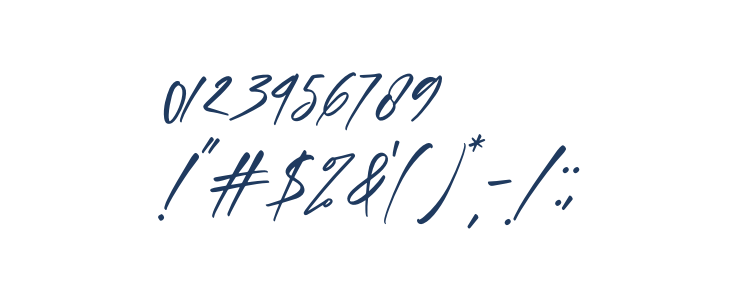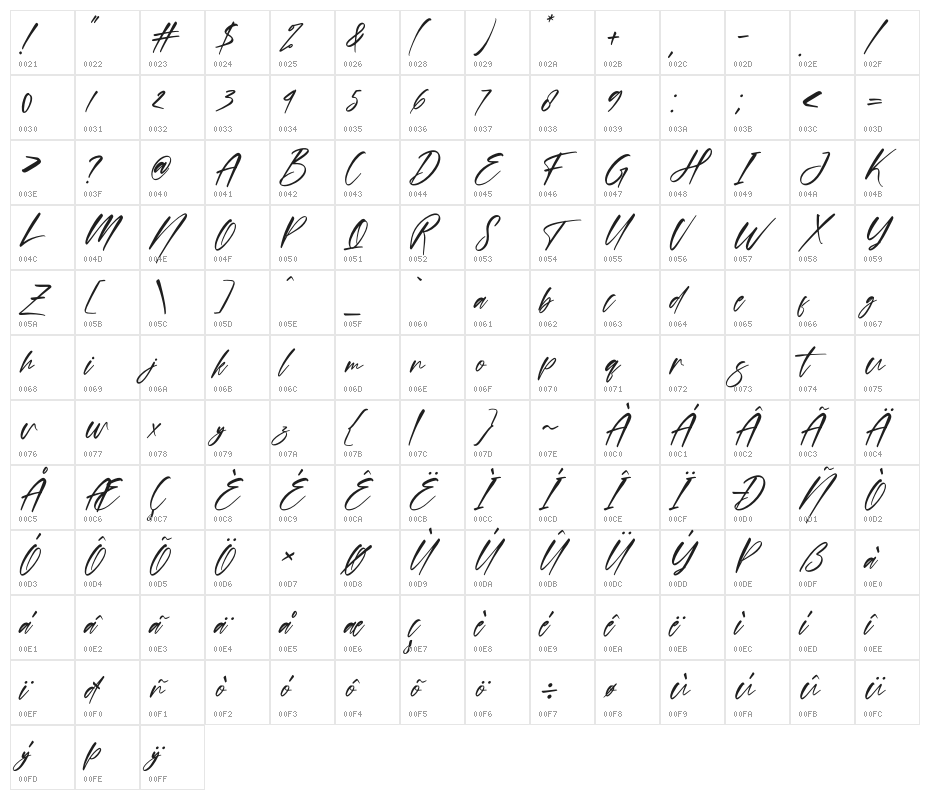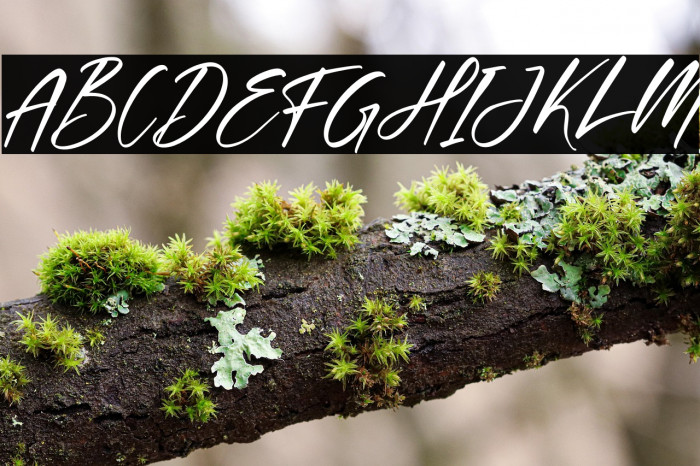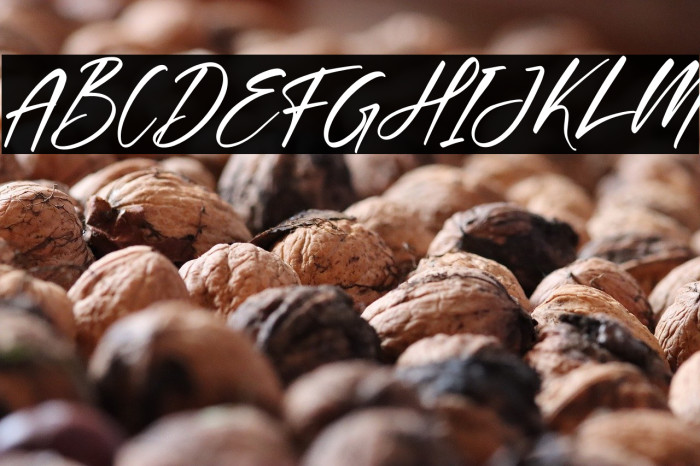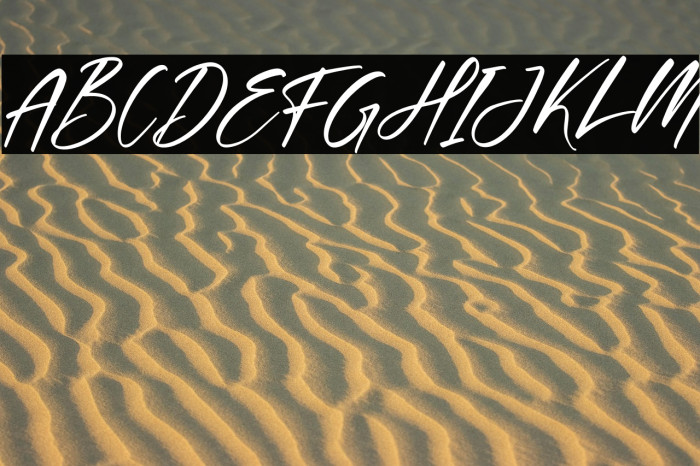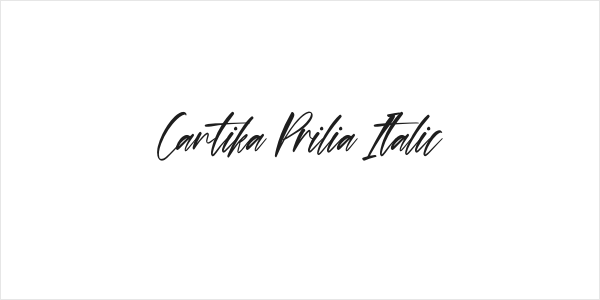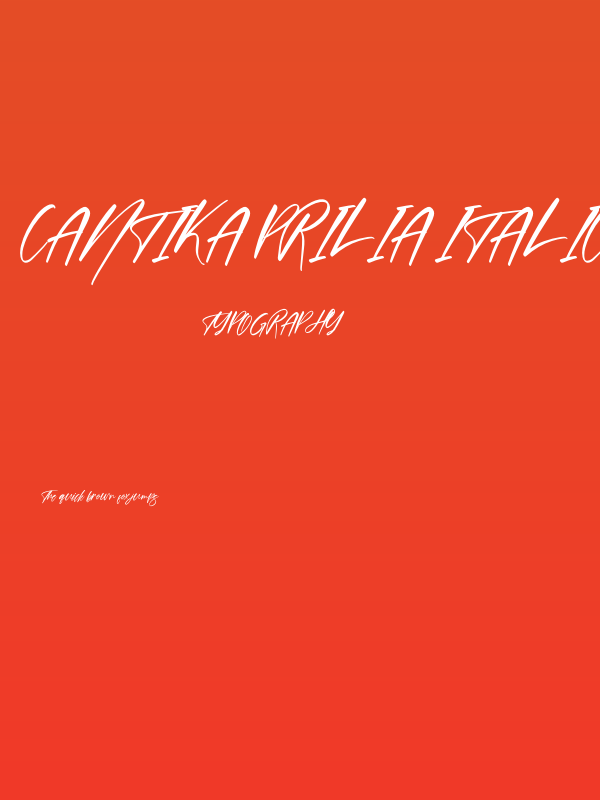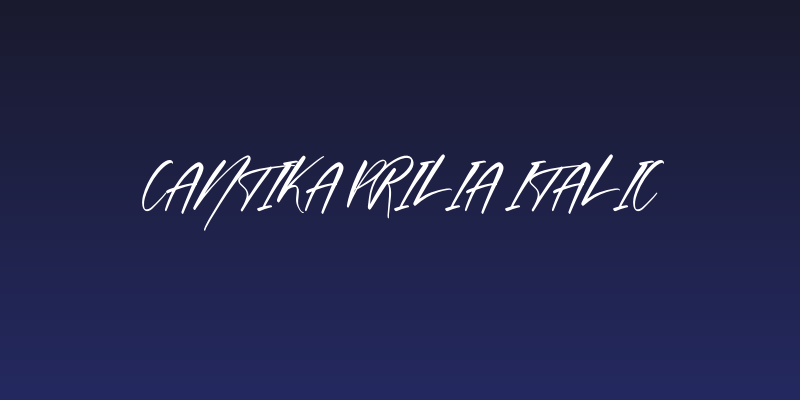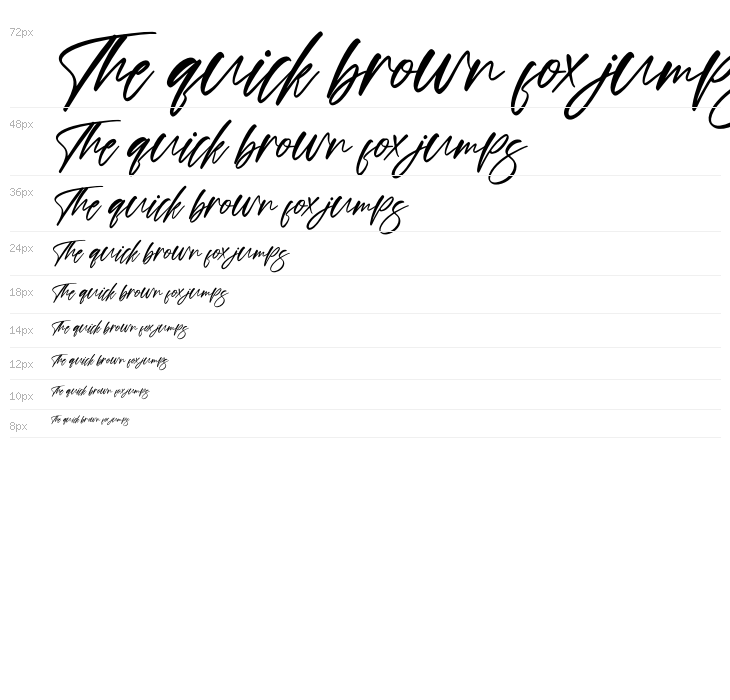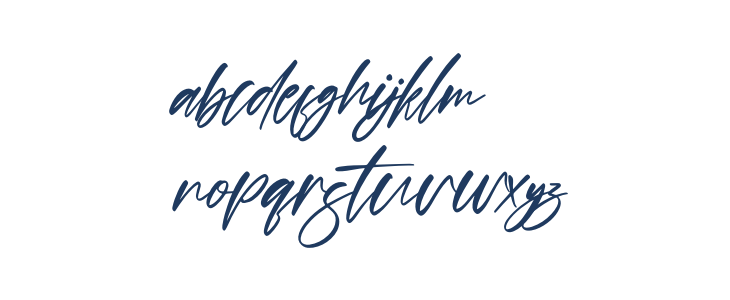
Cantika Prilia Italic Font
Cantika Prilia Italic Description
This font features a dynamic and flowing script style, characterized by its elegant and cursive letterforms. The strokes are smooth and connected, giving it a handwritten appearance that is both stylish and sophisticated. The uppercase letters are bold and prominent, while the lowercase letters maintain a consistent flow, enhancing readability. The numerals and special characters are designed to complement the overall aesthetic, making it versatile for various uses. Its italic nature adds a sense of motion and grace, ideal for creative and expressive projects.